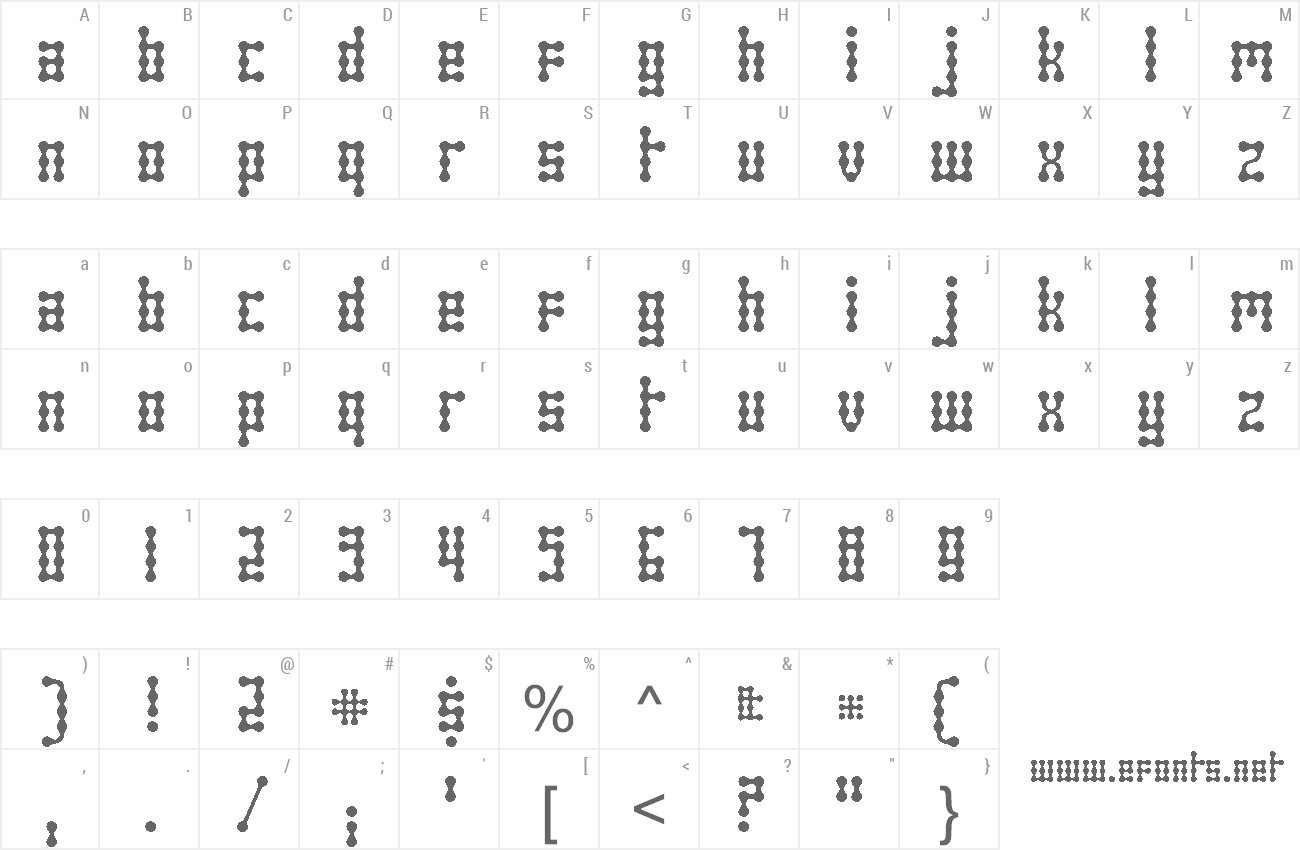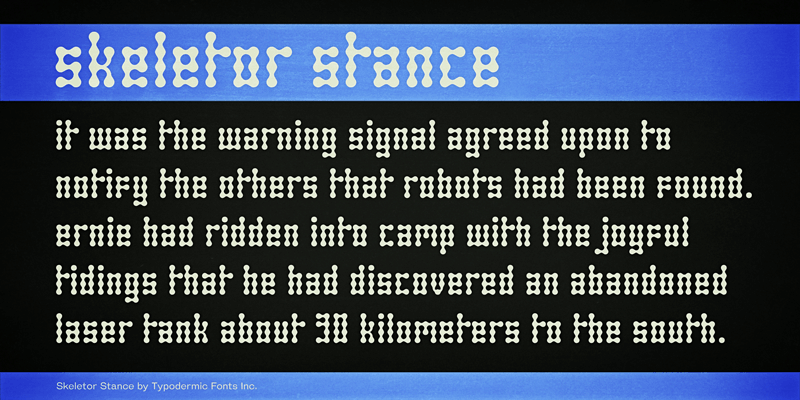
Skeletor Stance is a modular font made out of colloidal blobs. This font includes a license that allows free commercial use: sometimes referred to as a desktop license. This allows you to install the font on a computer and use it to create posters, web graphics, game graphics, t-shirts, videos, signs, logos and more. Read the license agreement for details. If you'd like to embed this font in an app, ebook, on the web or anything that's not covered by the desktop license agreement, visit the link below. You'll find distributors who offer different types of licenses or you can contact me for help. http://typodermicfonts.com/skeletor-stance/ |